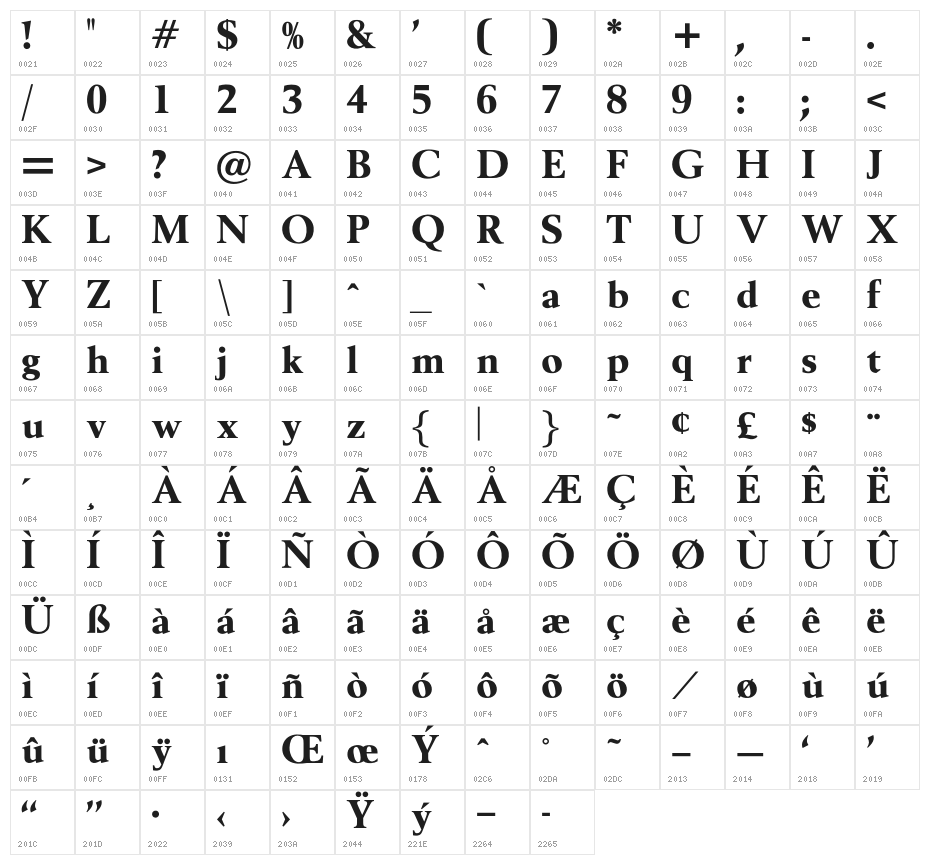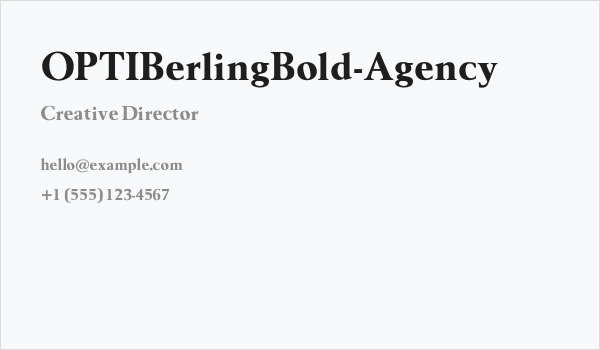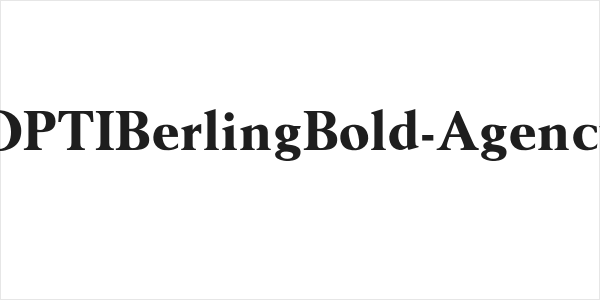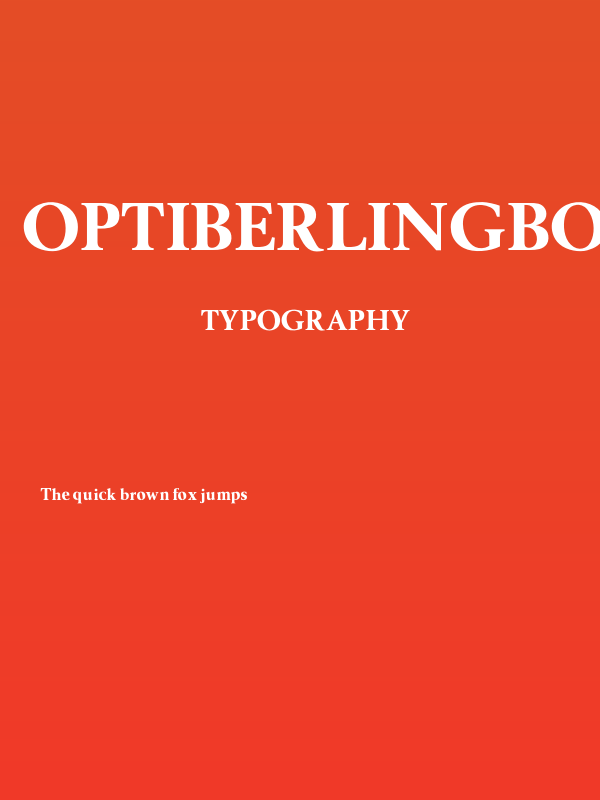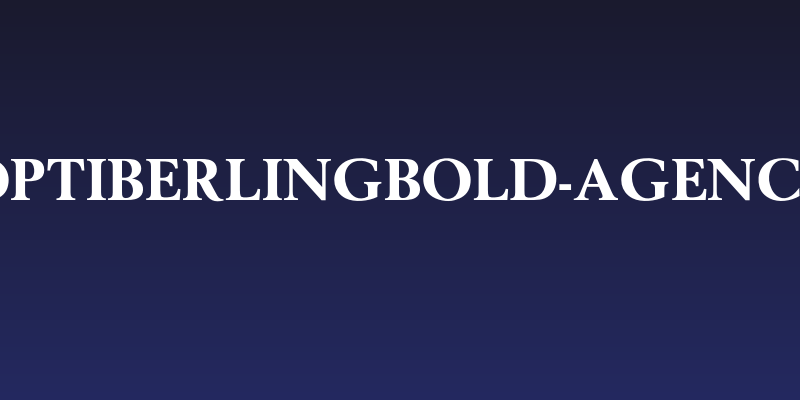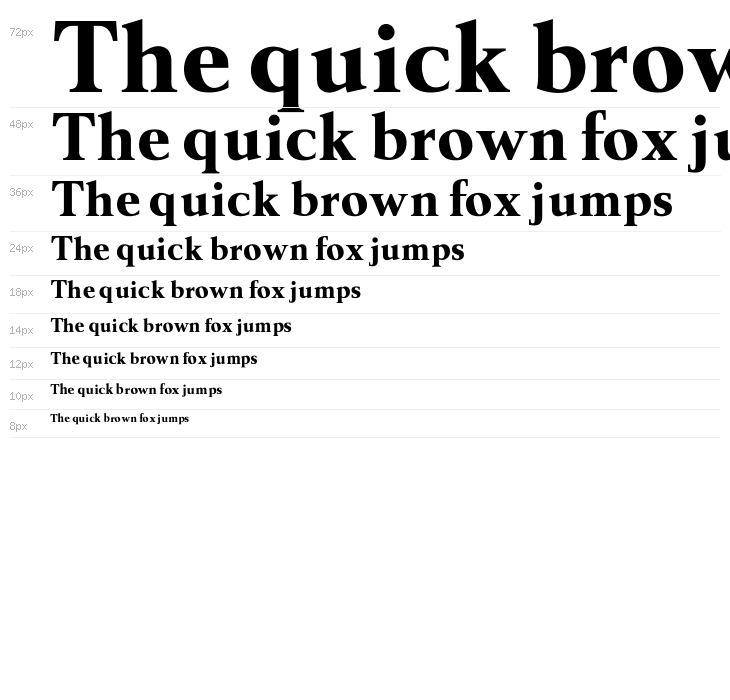
OPTIBerlingBold-Agency Font
OPTIBerlingBold-Agency Description
This font features a classic serif style with strong, bold strokes that convey a sense of authority and tradition. The uppercase letters are well-defined with sharp serifs, while the lowercase letters maintain a consistent weight, offering a harmonious balance. The numerals are clear and robust, ensuring readability. Special characters are designed with the same attention to detail, making them suitable for various applications. The overall appearance is both elegant and assertive, making it ideal for formal and professional settings.
| Use Case | Headlines, Logos, Editorial design |
| Proposed Projects | Ideal for book covers, editorial design, corporate branding, and formal invitations. |